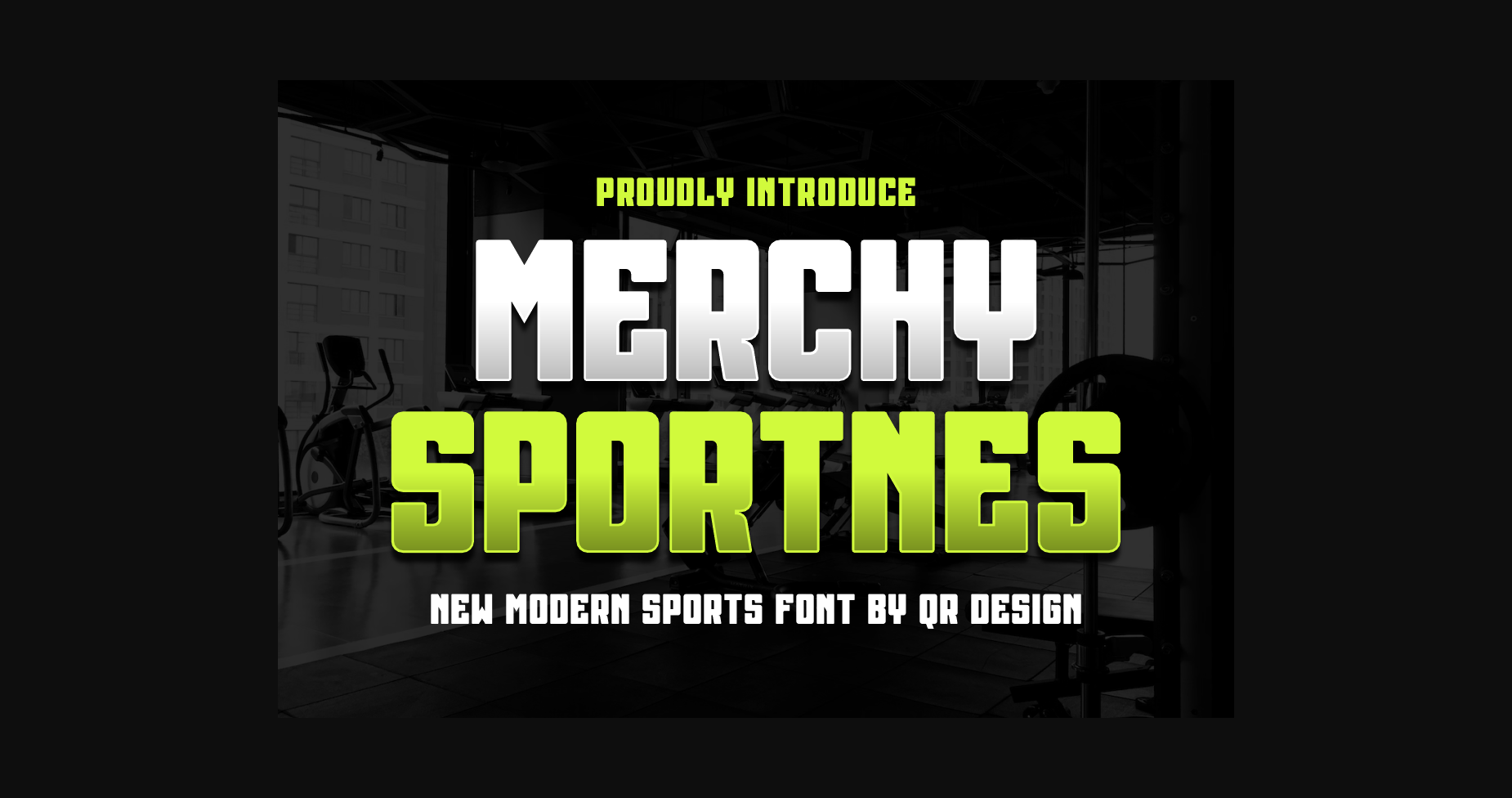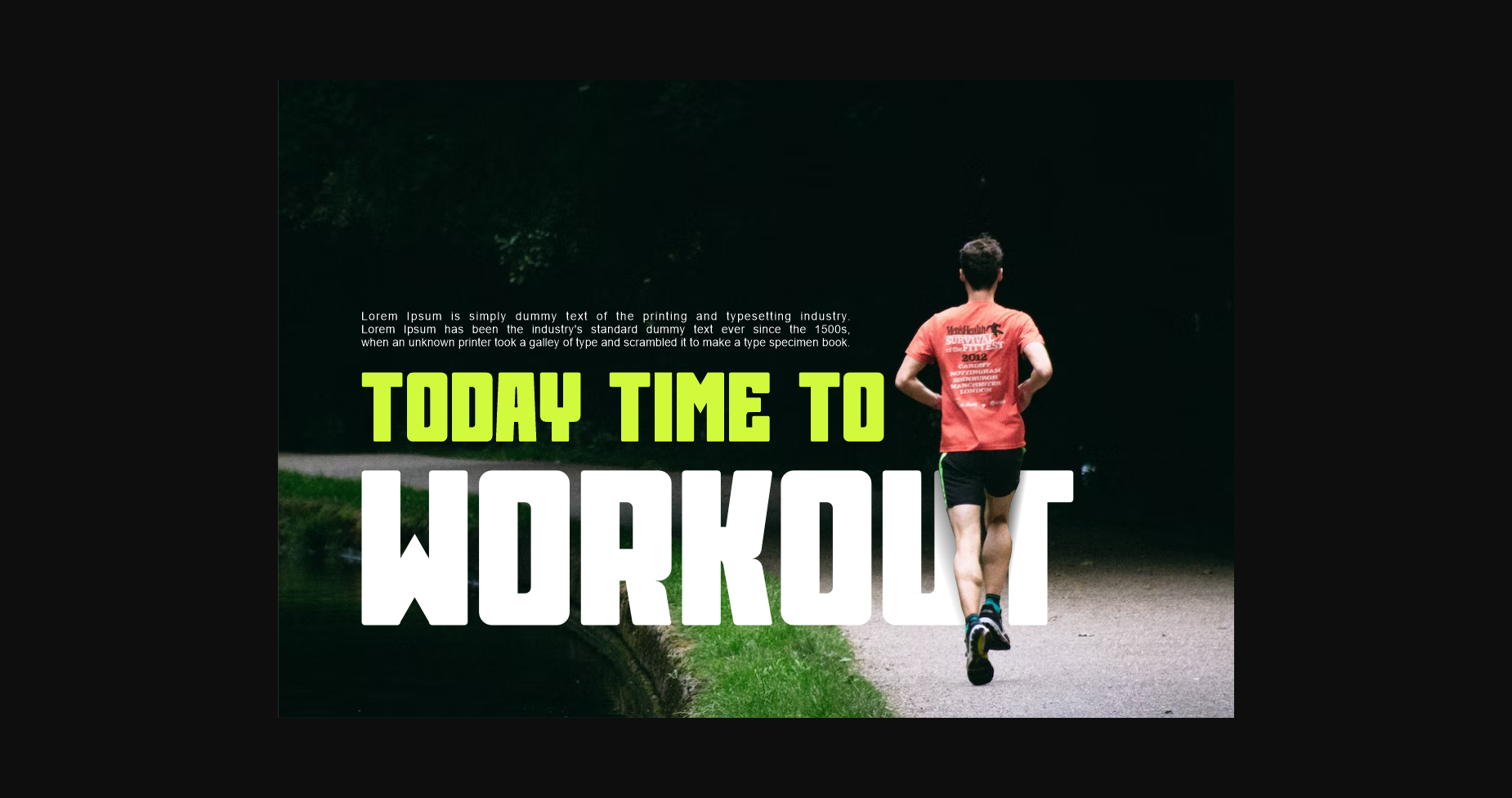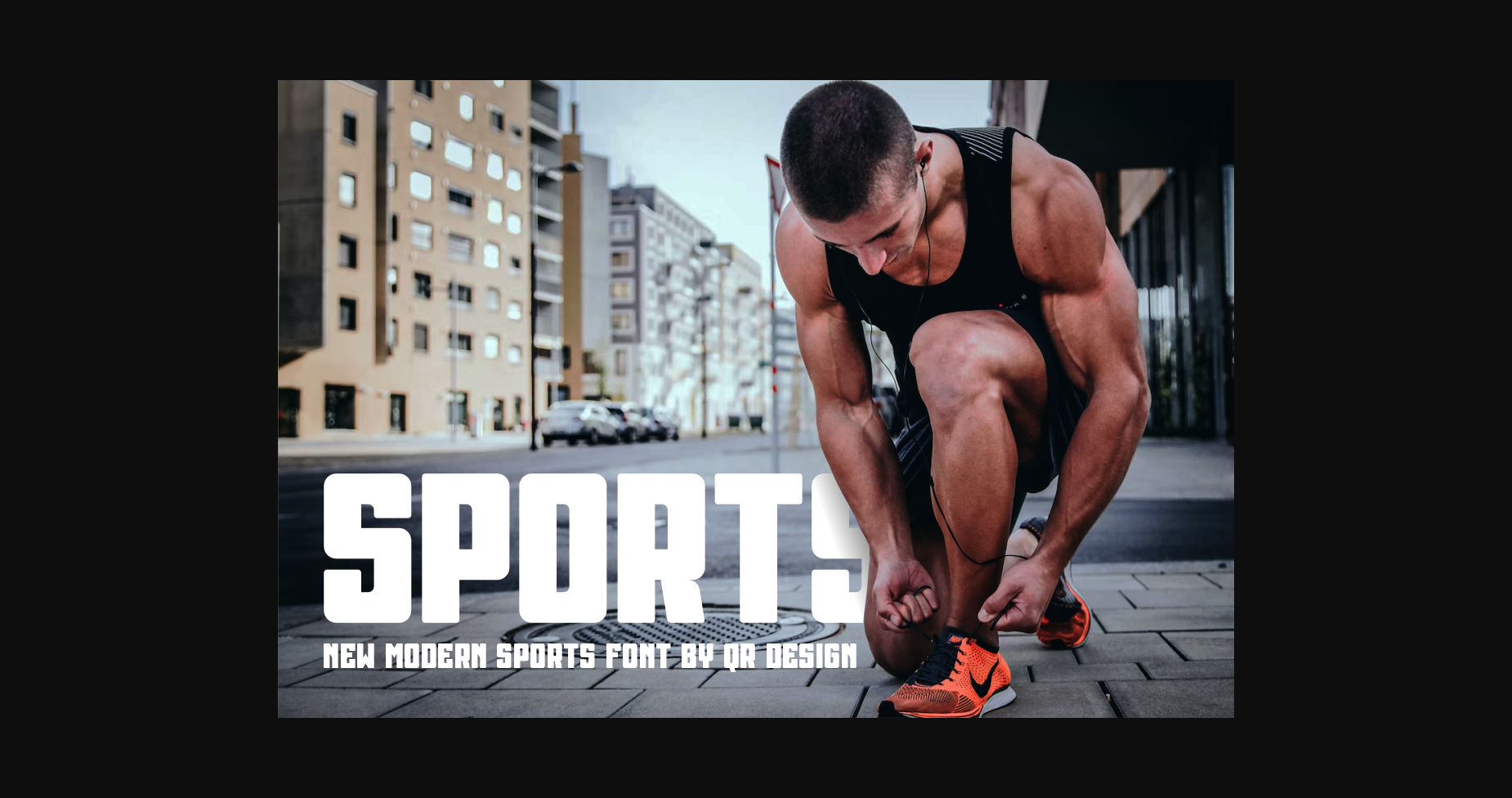
About Merchy Sportnes Font
Merchy Sportnes is a bold and authentic sans serif font.
The font is suitable for any branding project like logo, t-shirt printing, e-sport, and many more. It will look outstanding in a wide range of contexts.